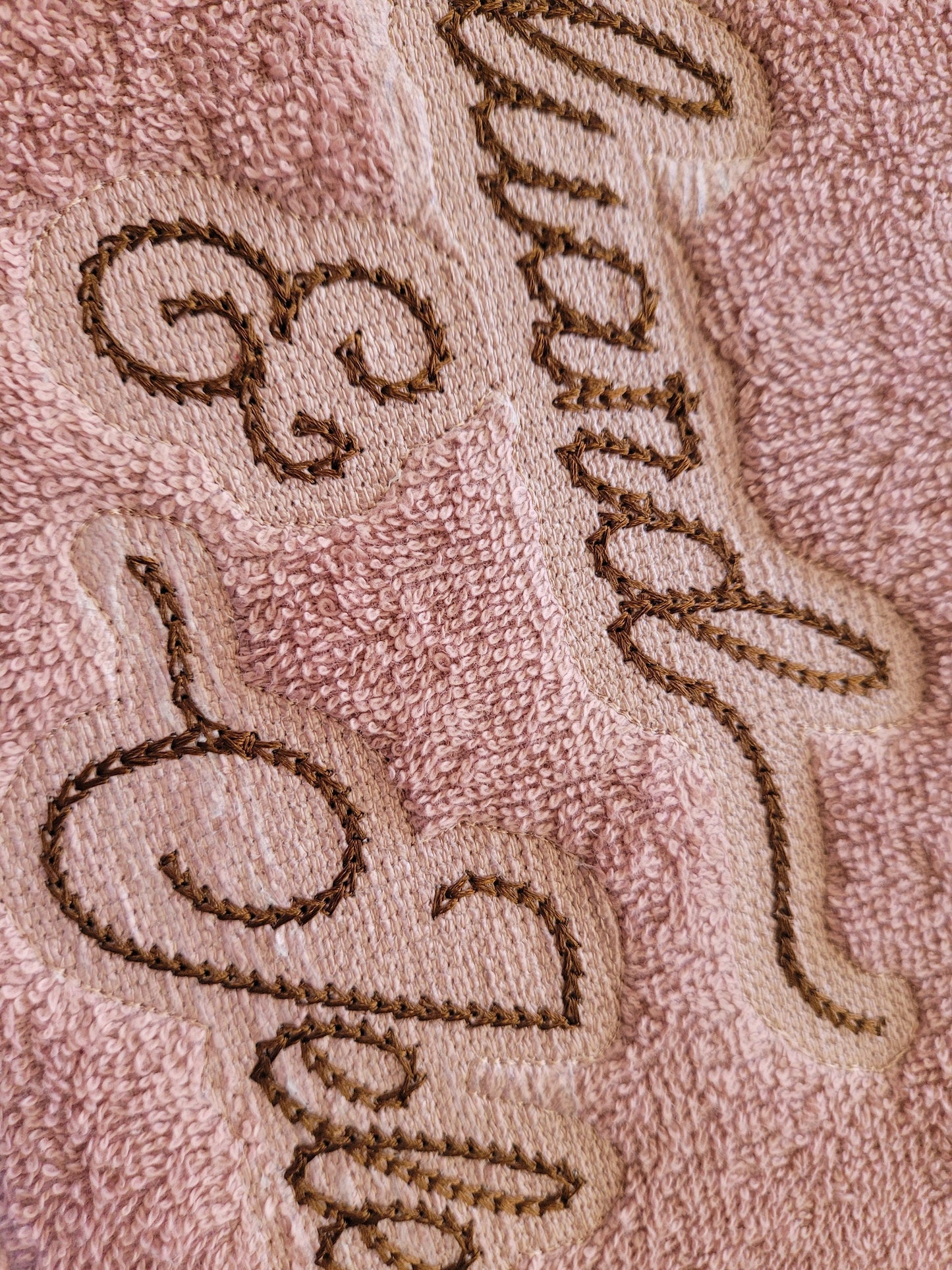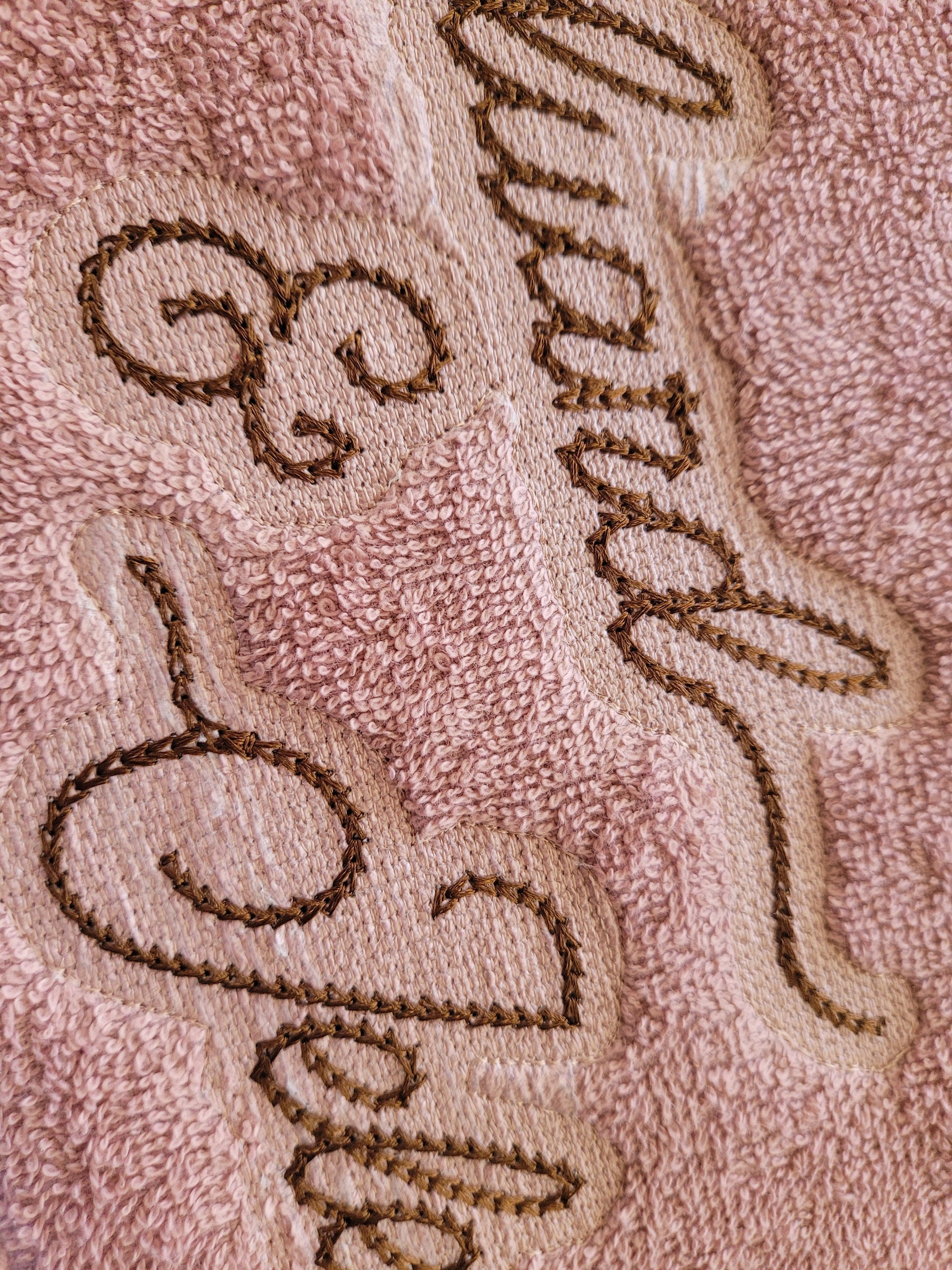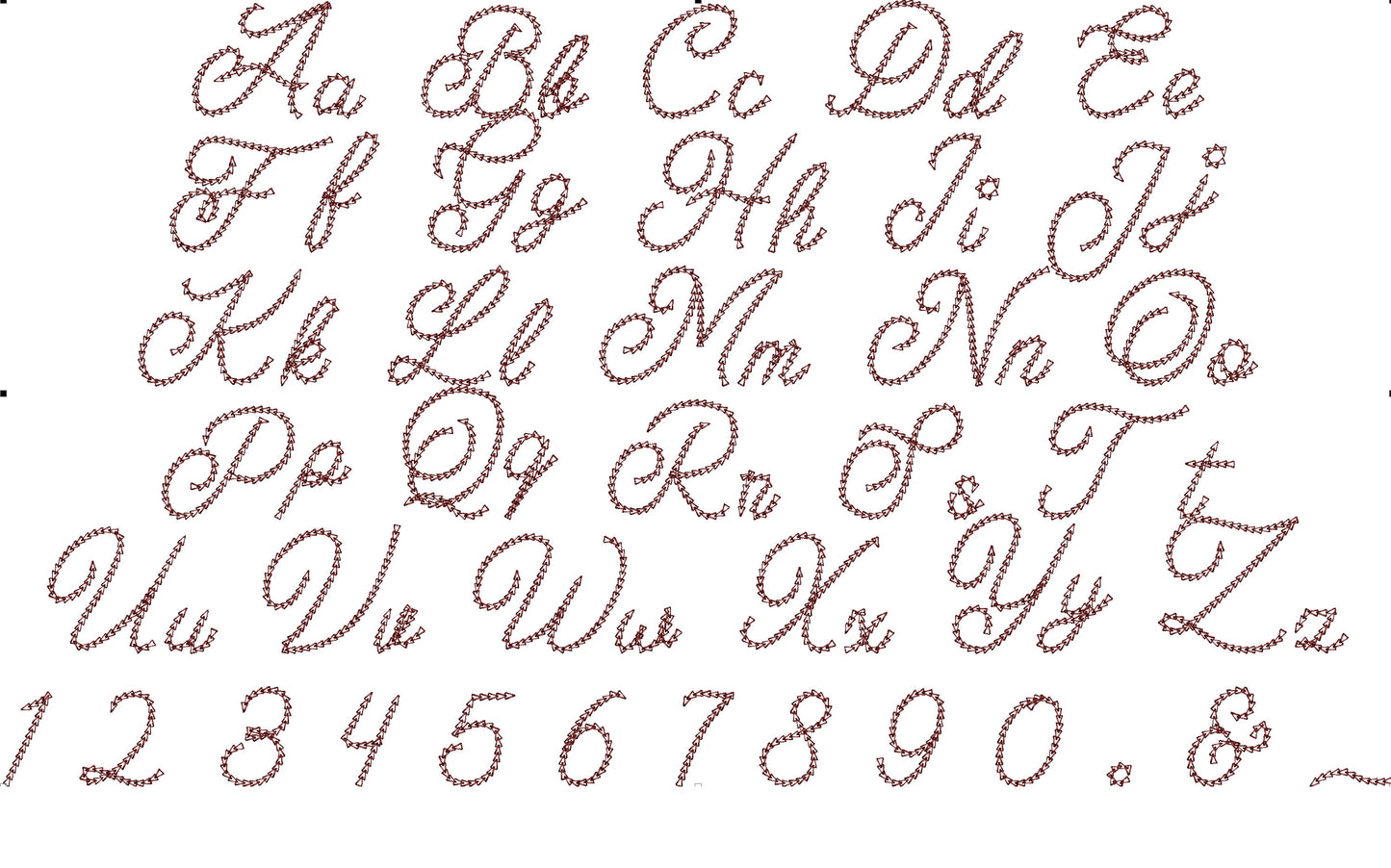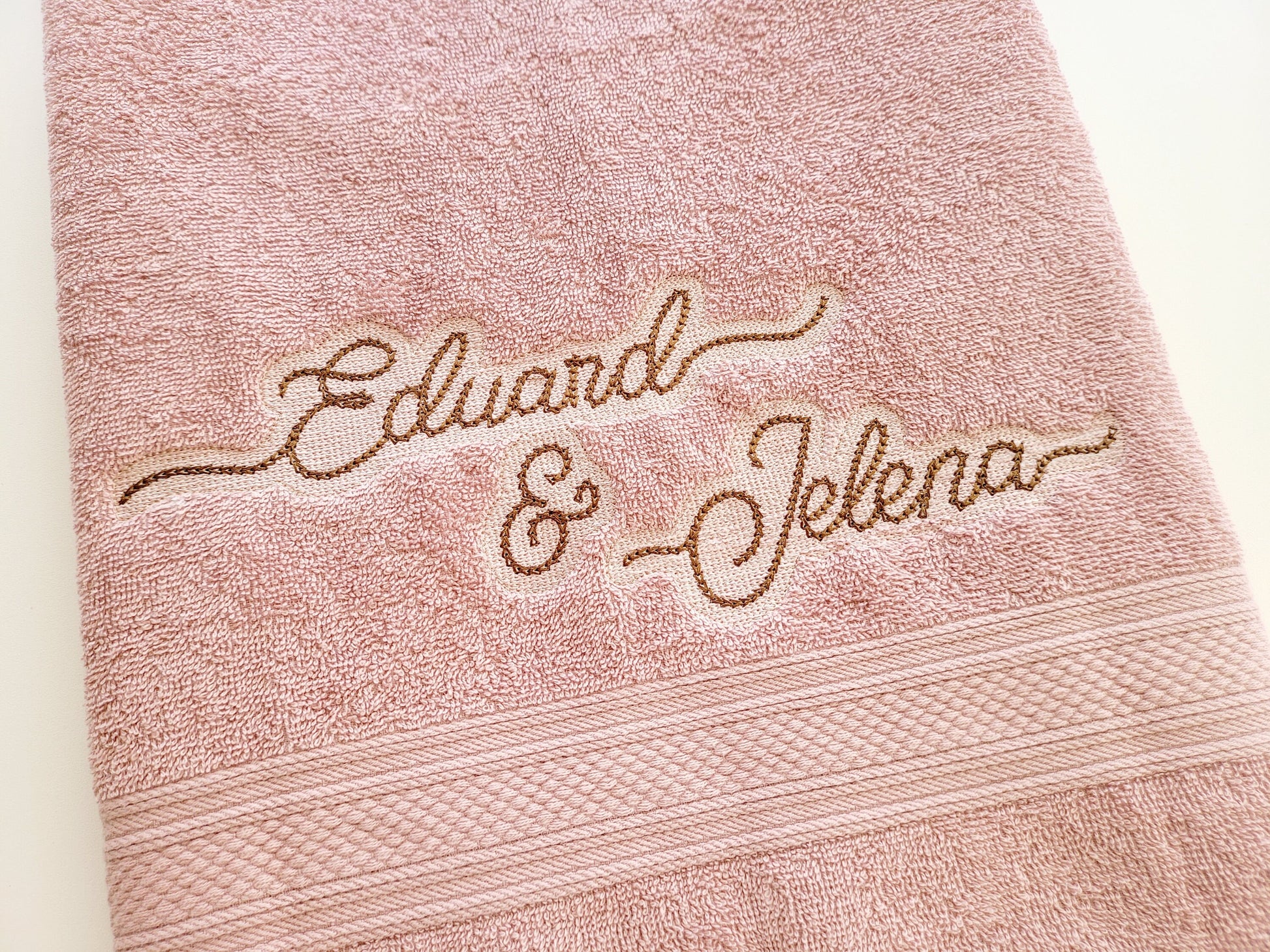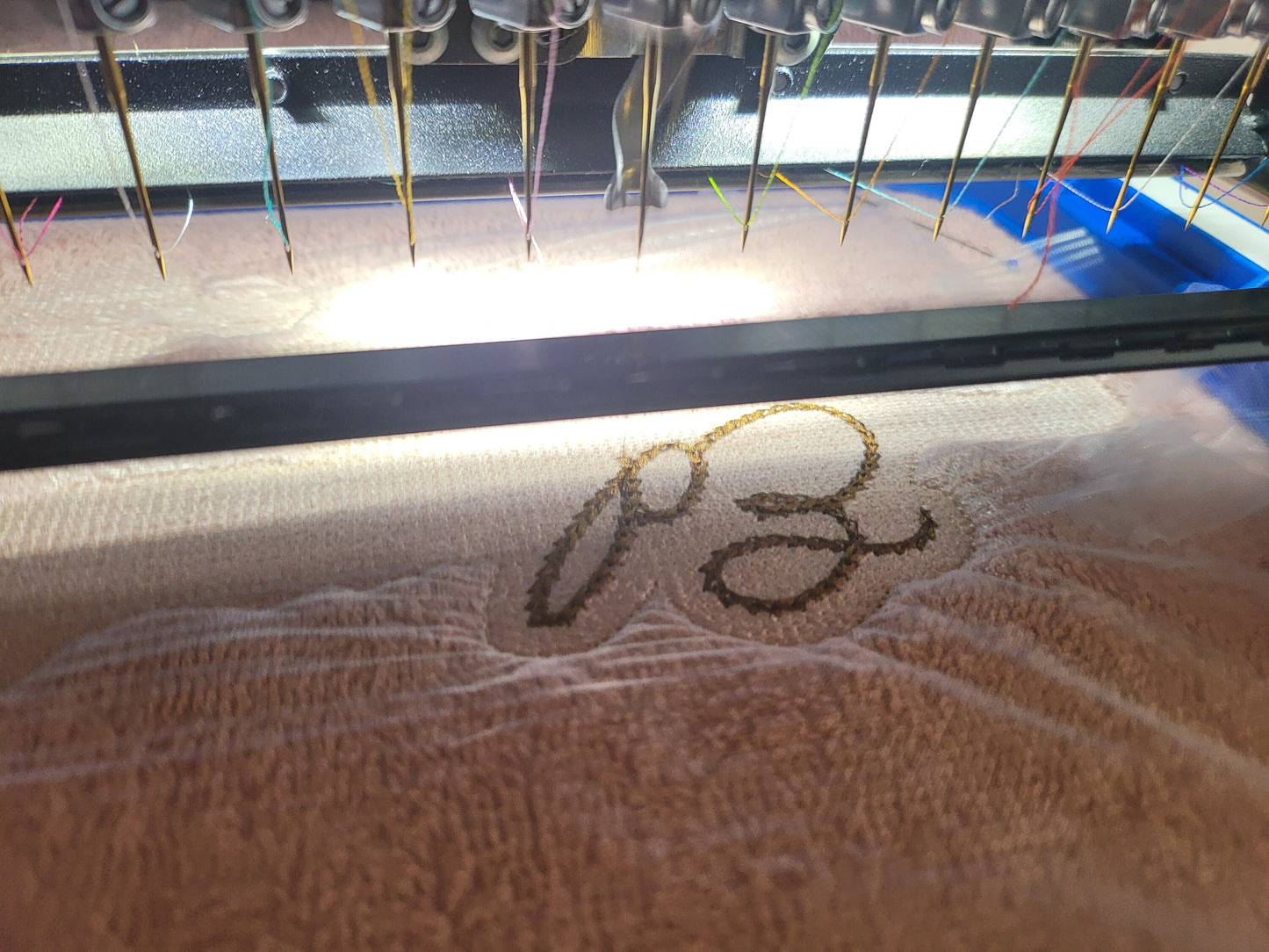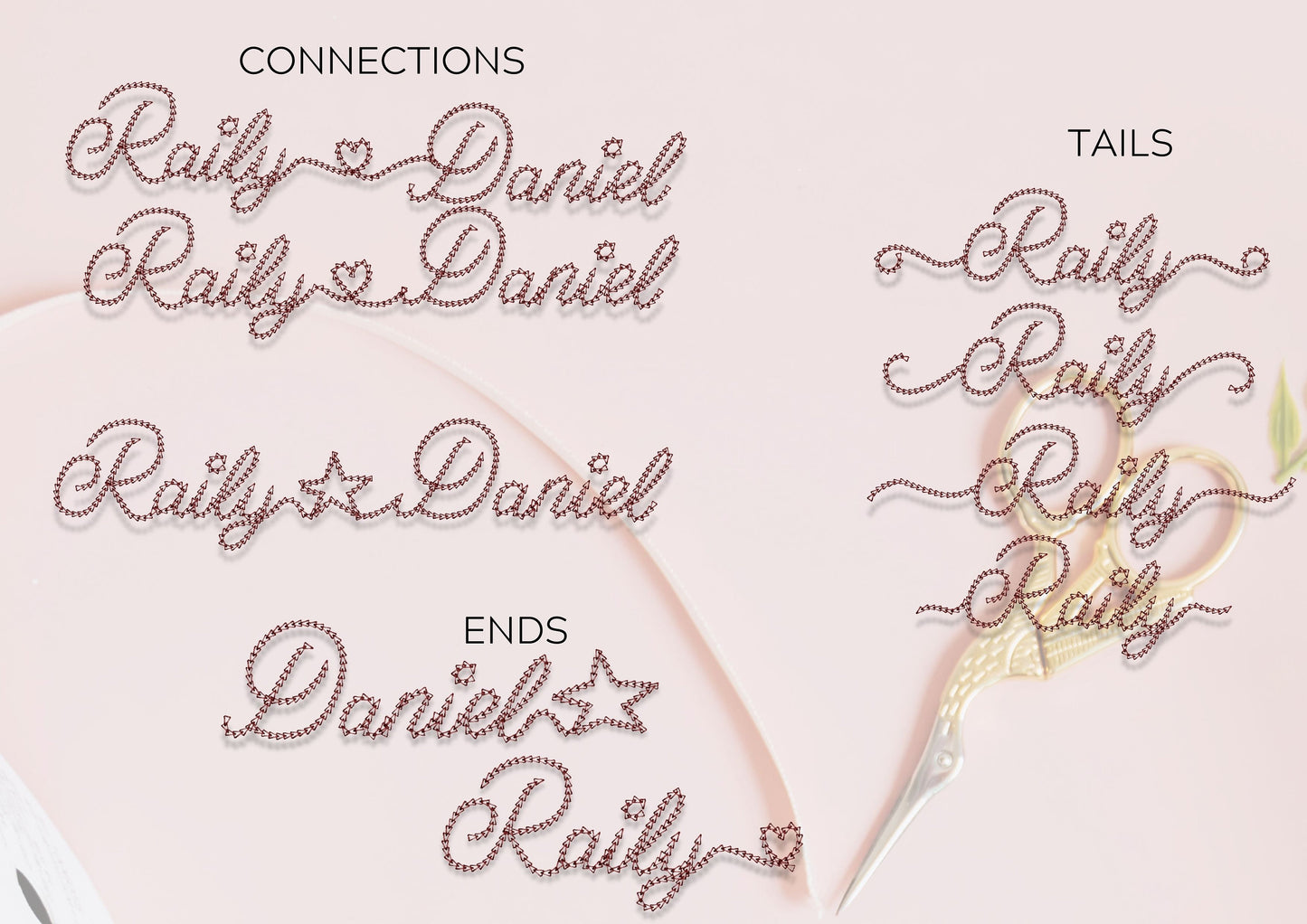
Or click to open the linkA quick light-stitch chain script with decorative ends, tails and connections, for names and words on shirts, bags and gifts.
Uppercase and lowercase letters, numbers and a few signs, plus 4 kinds of ends, 2 tails and 3 connectors such as hearts, stars and swirls. Eight sizes: 1.1, 1.5, 2, 3, 3.5, 4, 4.5 and 5 inches.